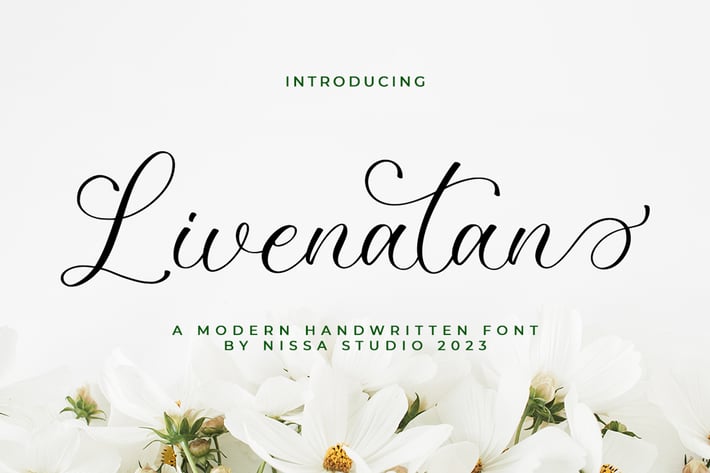
Livenatan - Wedding Font
Livenatan is a beautiful script font. Its refined style will give an elegant and modern look to any of your creative projects such as logos, branding, invitations, stationery, wedding designs, social media posts, and many more!
Modern Handwritten Font
Beautiful Swash (Ending tail)
Beautiful Titling (Beginning tail)
Special Ligatures